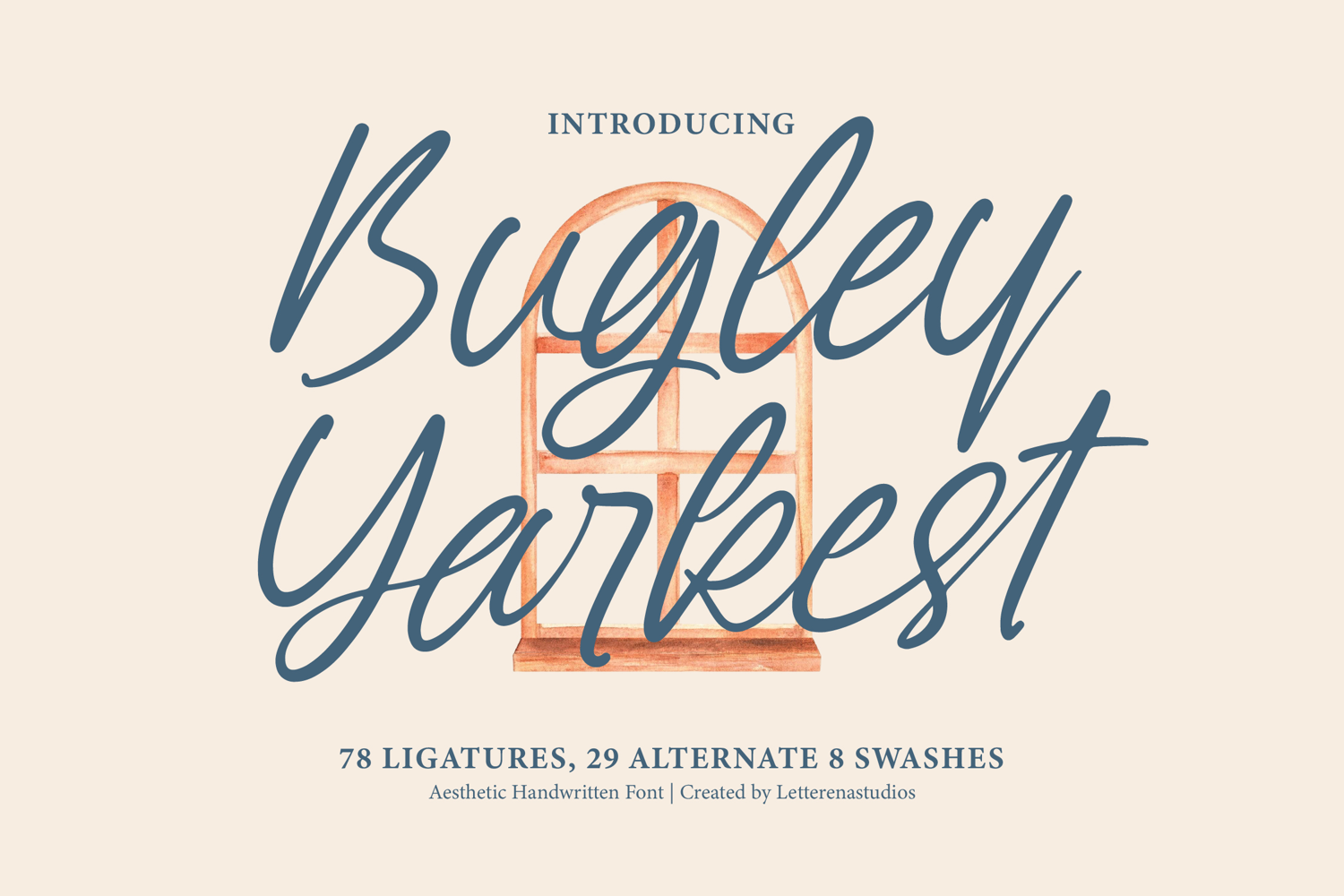
Bugley Yarkest Aesthetic Handwritten Font
Bugley Yarkest
Bugley Yarkest Italic
Bugley Yarkest - Aesthetic Handwritten Font , from Letterena, is a Luxury Script font, suitable for any projects such as: logos, branding projects, homeware designs, product packaging, mugs, quotes, posters, shopping bags, t-shirts, book covers, name card, invitation cards, greeting cards, label, photography, watermark, special events, and all your other luxury and beautiful projects that need a Luxury Script taste.
78 Ligature 29 Alternate & 8 Swashes